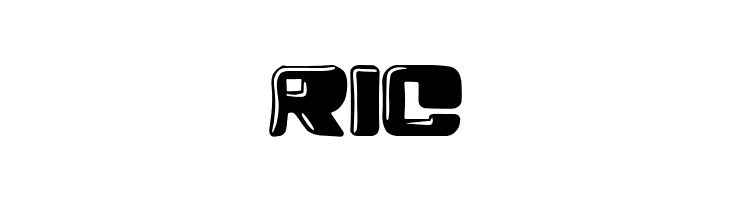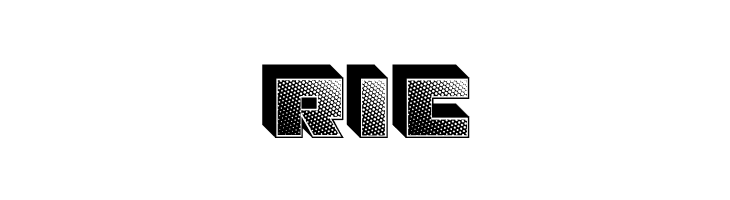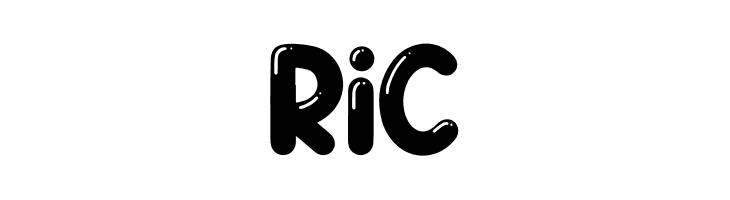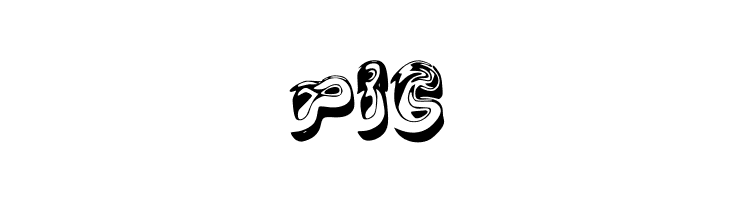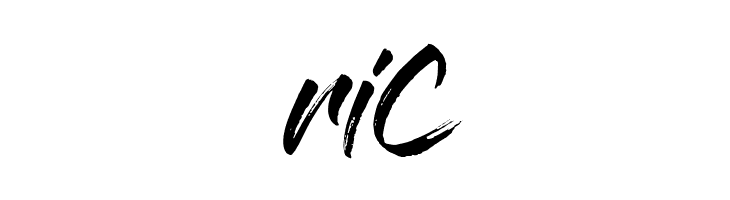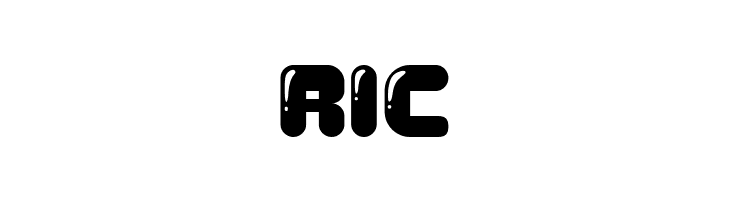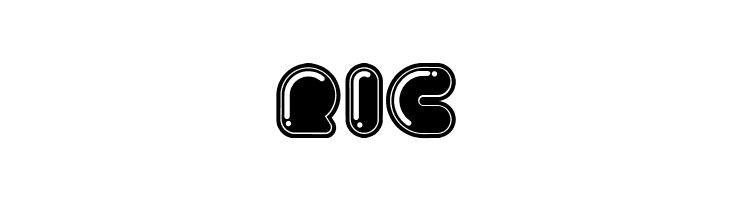
GlossAndBloom Font
A bold, brush script font with a dynamic, hand-painted style.
Glossy Sheen Shine Font
A playful, glossy, and bold font with a bubbly, three-dimensional appearance.
Glossy Sheen Regular Font
A bold, rounded font with a playful and retro style.
GlossyNight Font
A dynamic, cursive script font with expressive, flowing strokes and artistic flair.
Glossy Sheen Shadow Font
A bold, playful font with a glossy sheen and shadow effect for a 3D look.
Glossy Sheen Outline Font
A playful, bold outline font with rounded, bubbly letterforms.
Shiny Blocks Less Gloss Regular Font
A bold, 3D block font with a glossy, dotted texture and sharp edges.
Glossy Font
An elegant script font with flowing, cursive letterforms and refined details.
Glossy Font
An elegant script font with flowing, cursive letterforms and sophisticated style.